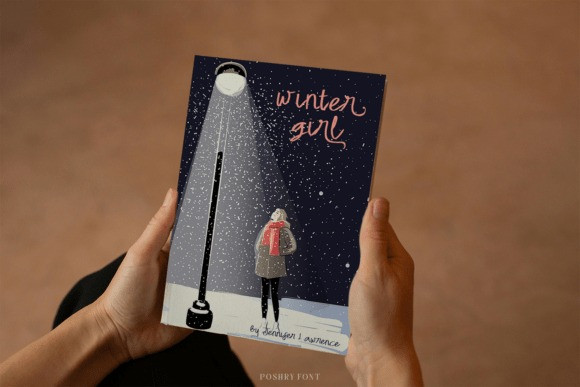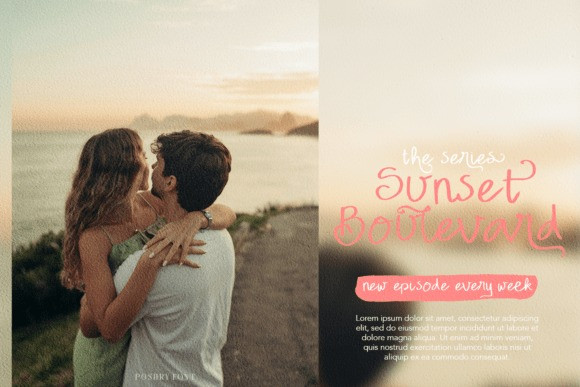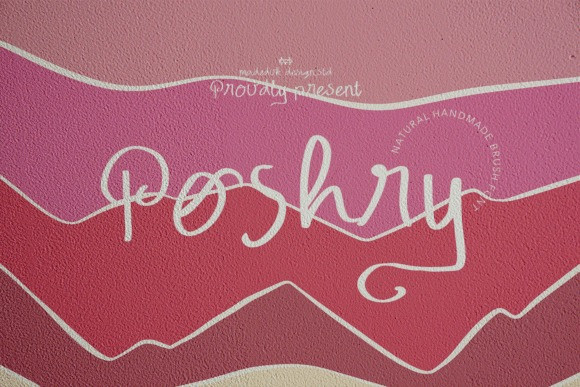
Poshry Font
Poshry Font is a realistic handwritten script that delivers an easy, human touch to modern layouts. Smooth pressure shifts, rounded terminals, and a relaxed, slightly bouncing baseline create convincing ink-on-paper flow. Built-in ligatures and stylistic alternates vary repeated letters and form natural joins, so titles and wordmarks read like true handwriting. Optimized for display use, it shines on posters, book covers, merchandise, fashion campaigns, newsletters, branding and advertising, magazines, greeting cards, album art, and quotable social graphics.